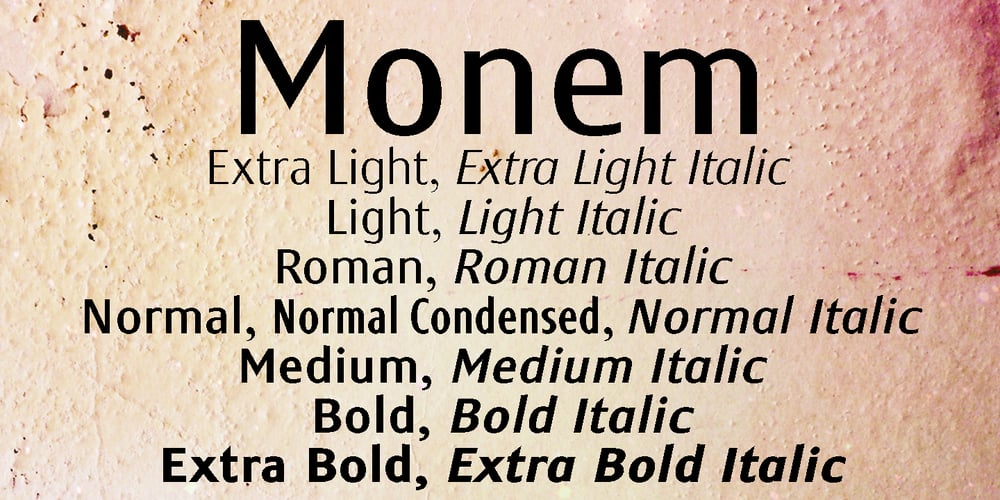
Monem
Monem font
Monem Font Family was designed by Gert Wiescher and published by Wiescher Design. Monem contains 15 styles and family package options. Monem is the word for the smallest significance-carrying part of a language. I thought that was a good name for a clean, straightforward Sans typeface. Monem is very sturdy and usable for lots of occasions. I am using this font myself for those of my clients that want to convey a clean unobtrusive image. Your very restrained Gert Wiescher